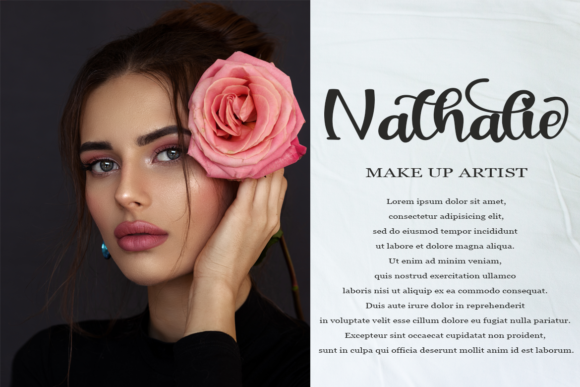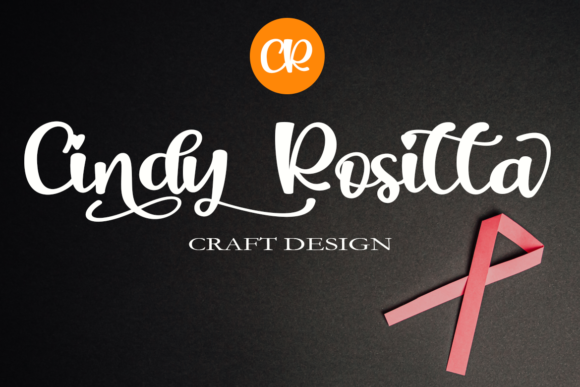
Kamuflase Font
db-ku.com - Script & Handwritten -- Kamuflase is a beautiful and quirky handwritten font. Whether you are using it for cartoon-related designs, children’s games, quotes, titles, brand names, book covers, posters, or just any creation that requires a touch of beauty, this font is a great choice.